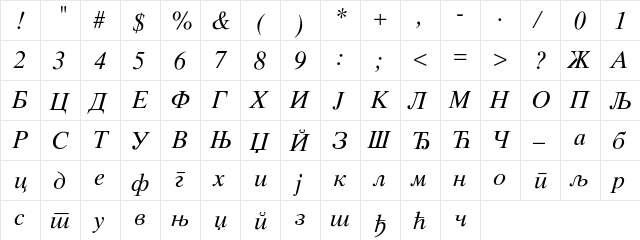
CTimes Italic Regular
Design Context for CTimes Italic Typeface
CTimes Italic is a composed and adaptable typeface that performs quietly and consistently across a wide range of design contexts. The dynamic lean of this cut emphasises speed and emphasis in any layout.
Pro Tip: Try CTimes Italic for annotation and caption copy alongside an upright companion — the contrast in angle creates a dynamic but ordered typographic system.